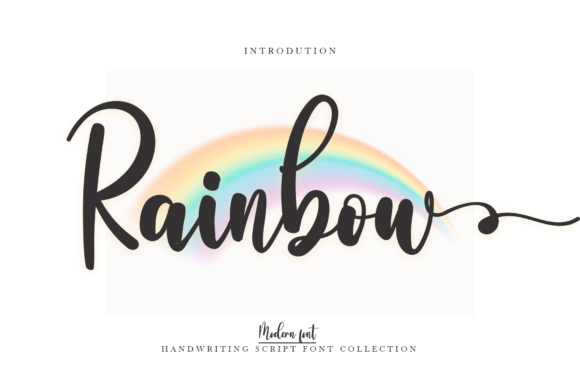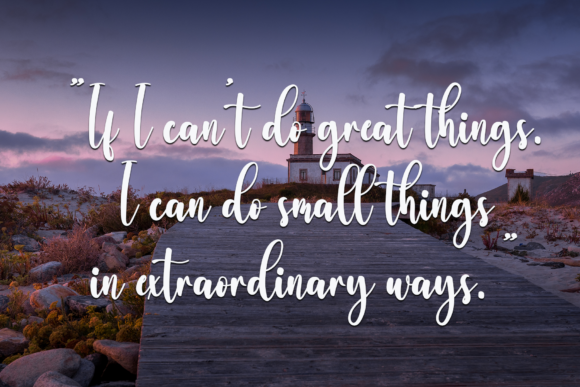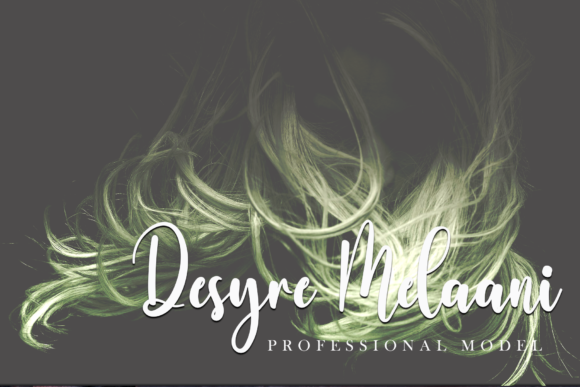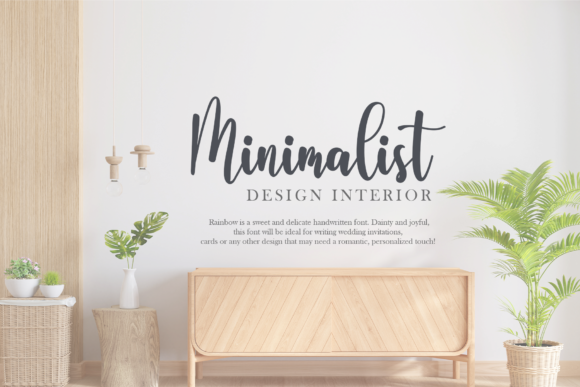
About Rainbow Font
Rainbow, a cute and simple lettered handwritten font, brings a delightful touch to your projects, particularly suitable for chalkboard quotes and teaching materials. With its authentic appearance, this font adds a personal and realistic feel to your designs, enhancing their charm and approachability.
The cuteness of Rainbow is evident in its simple lettering, making it an ideal choice for various applications. Picture this font gracing chalkboard quotes, where its handwritten style adds a touch of whimsy and authenticity. Each character becomes a playful element, contributing to a visually engaging and friendly atmosphere.
In educational materials, Rainbow becomes a valuable asset, enhancing the overall design with its cute and simple lettering. The authentic look of the font creates a connection with learners, making the content more relatable and enjoyable.
The versatility of Rainbow extends to various design contexts, making it a perfect choice for projects that require a balance of simplicity and authenticity. Whether you’re creating posters, signage, or any visual content, this font adds a cute and approachable aesthetic.
As you incorporate Rainbow into your creative endeavors, let its cute and simple lettering inspire a playful and friendly atmosphere. Whether you’re designing for educational purposes or crafting visually appealing quotes, this font becomes a delightful tool for adding character and authenticity to your designs.